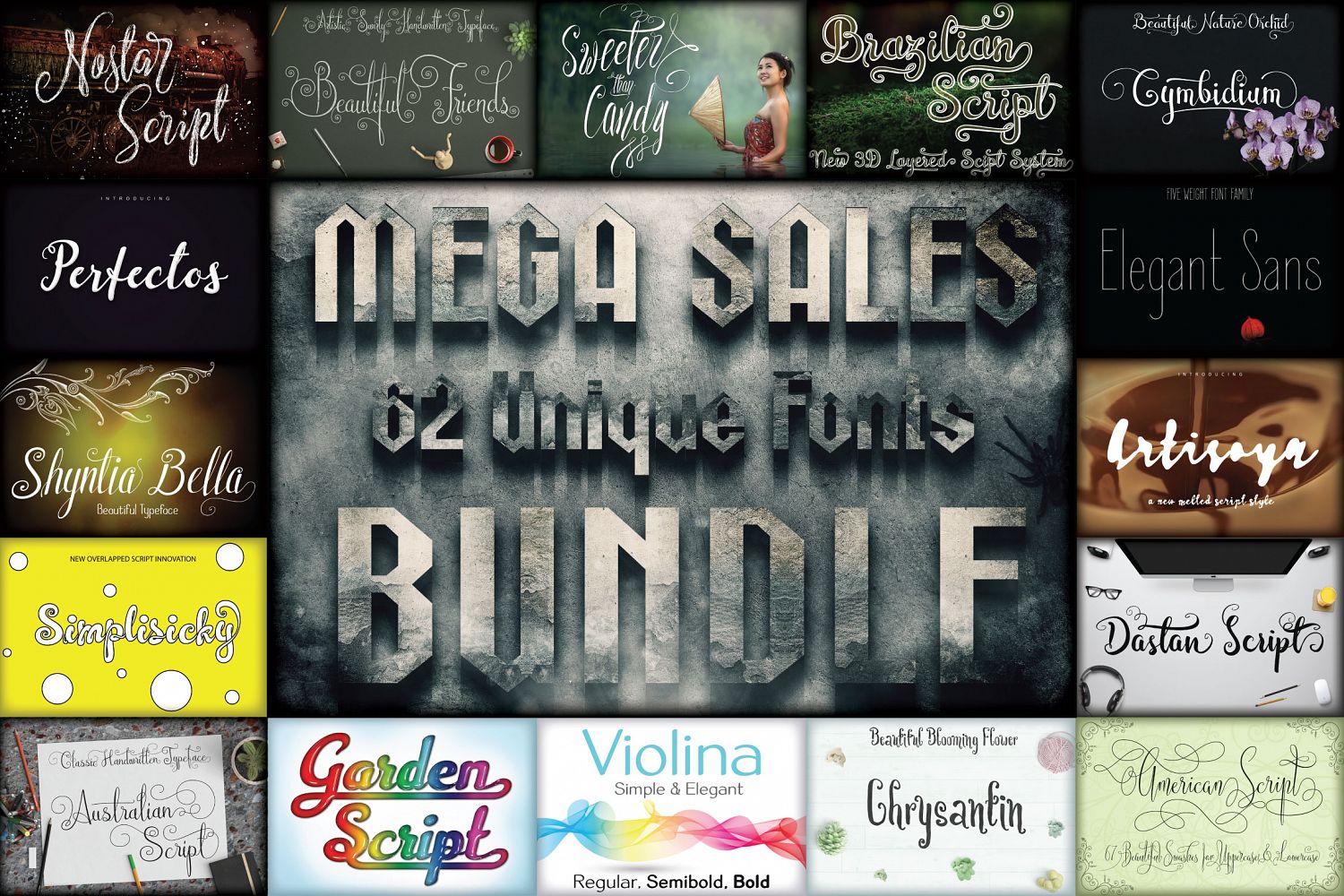
MEGA SALES 62 FONTS BUNDLE
Introducing the hottest font bundle in the year!
These fonts have so many style, start from children handwriting type,
cursive script, complicated calligraphy, brushed script, patterned
display font, black letter, 3D script, swirly handwritten, to some
formal sans serif. I found some innovation in font OpenType features
system about auto underlined script style (Garden Script), 3D script
(Brazilian Script), and balanced swash for uppercase characters
(Beautiful Friends Script).
Some lovely fonts were selected as Best Typeface of 2016 and Best
Typeface of 2017!
List of Fonts included:
1. Alien Sign.
2. American Script.
3. Argentina Script.
4. Artisoya Script.
5. Asteroidea.
6. Australian Script.
7. Beautiful Friends Script.
8. Blunt Brush.
9. Brazilian Script.
10. Chrysantin.
11. Comic Font.
12. Comic Land.
13. Cymbidium Script.
14. Dastan Script.
15. Elegant Sans Font Family.
16. Frizzy Bella.
17. Garden Sans.
18. Garden Script.
19. Handwritten Bold.
20. Handwritten Sans.
21. High Desert Script.
22. Kidtype.
23. Lazy Gogo.
24. Marie Bella.
25. Metalick Bold.
26. Nostar Script.
27. Old Story Bold.
28. Perfectos Script.
29. Philoshopy Script.
30. Santa Rose Script.
31. Senior Artist.
32. Shintia Bella Script.
33. Simple Chalk.
34. Simplisicky Script.
35. Sweeter than Candy Script.
36. Violina.
37. Von Halent.
38. Wedding Font Script.
Other 24 fonts are alternate style and other weight style inside a font family